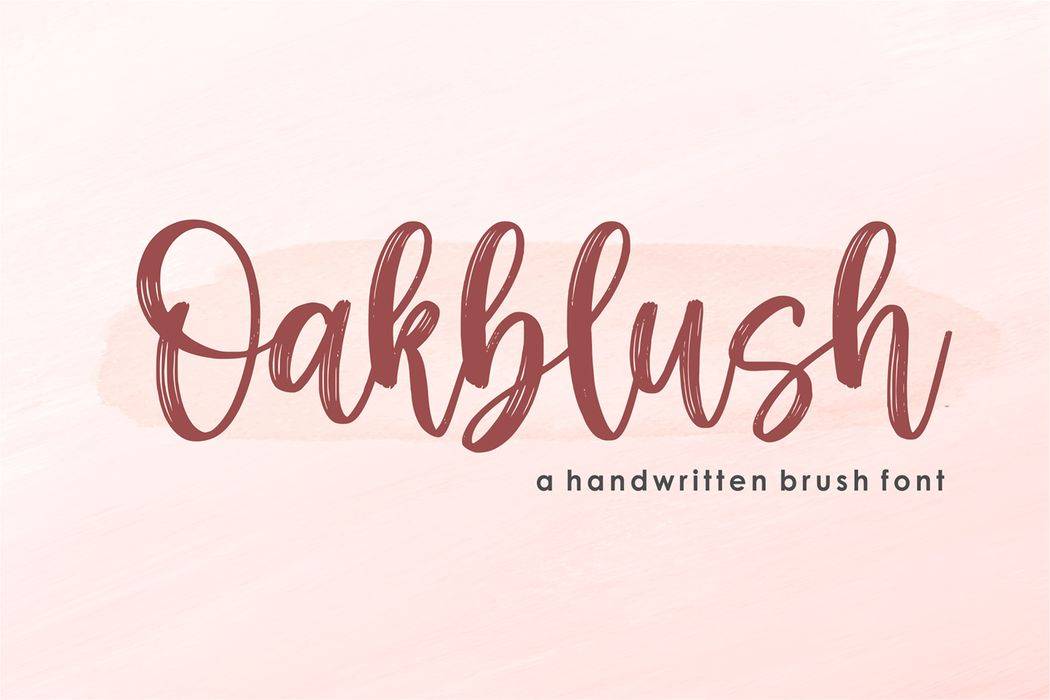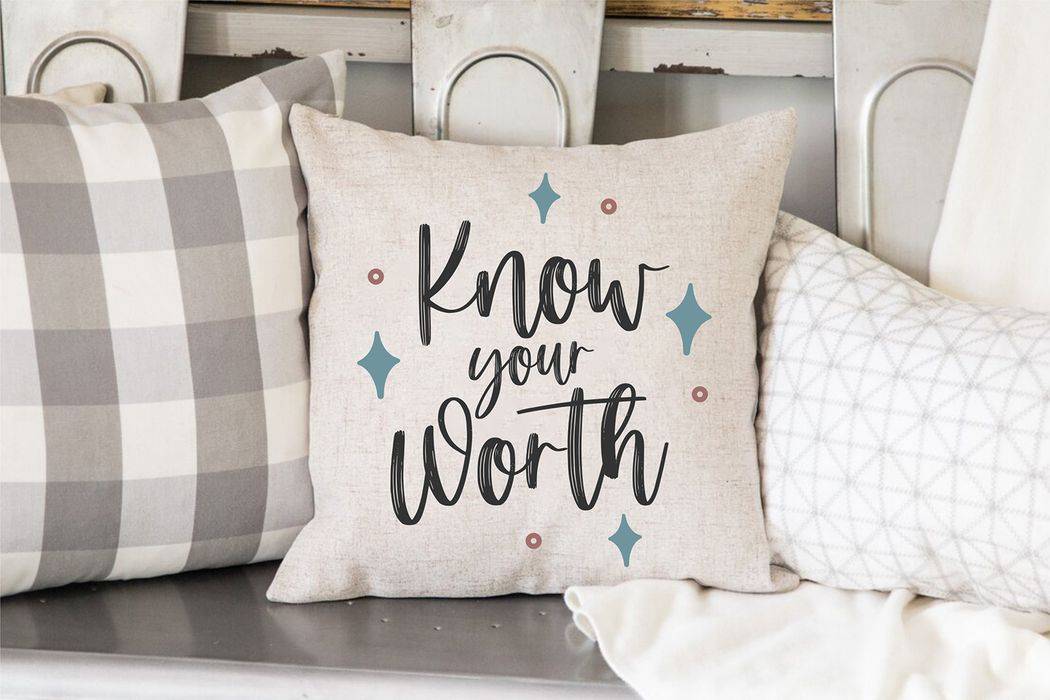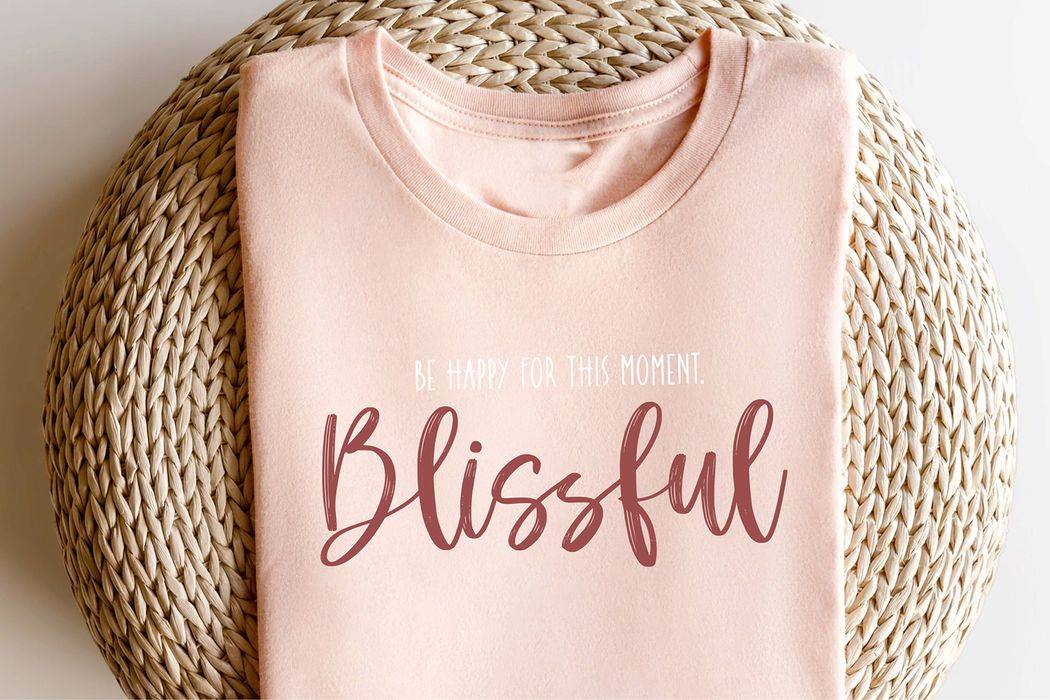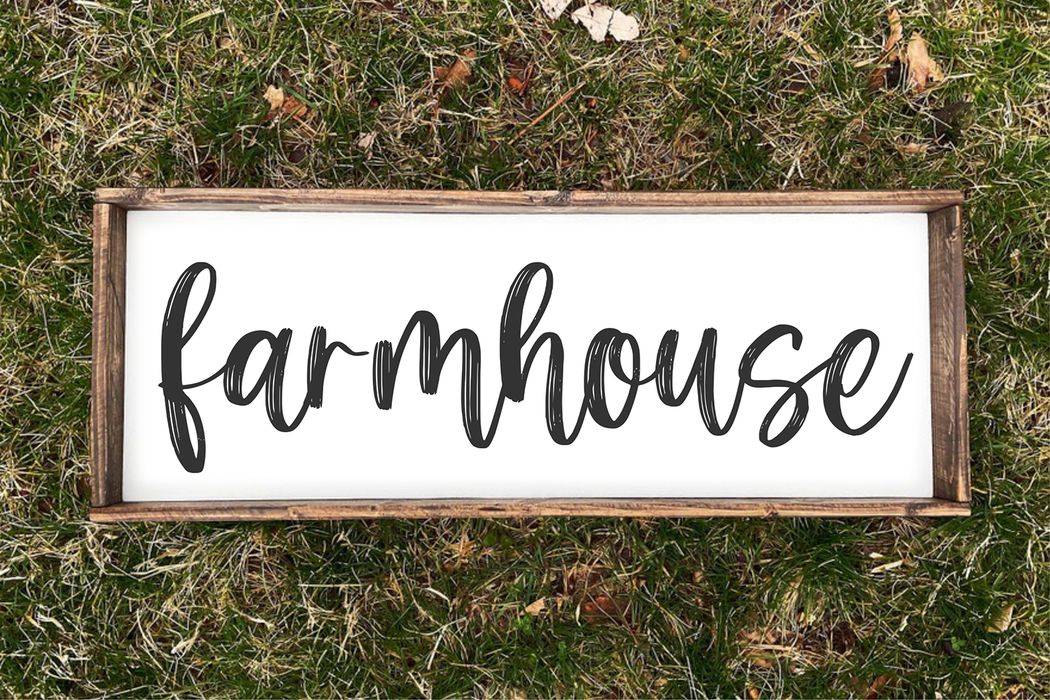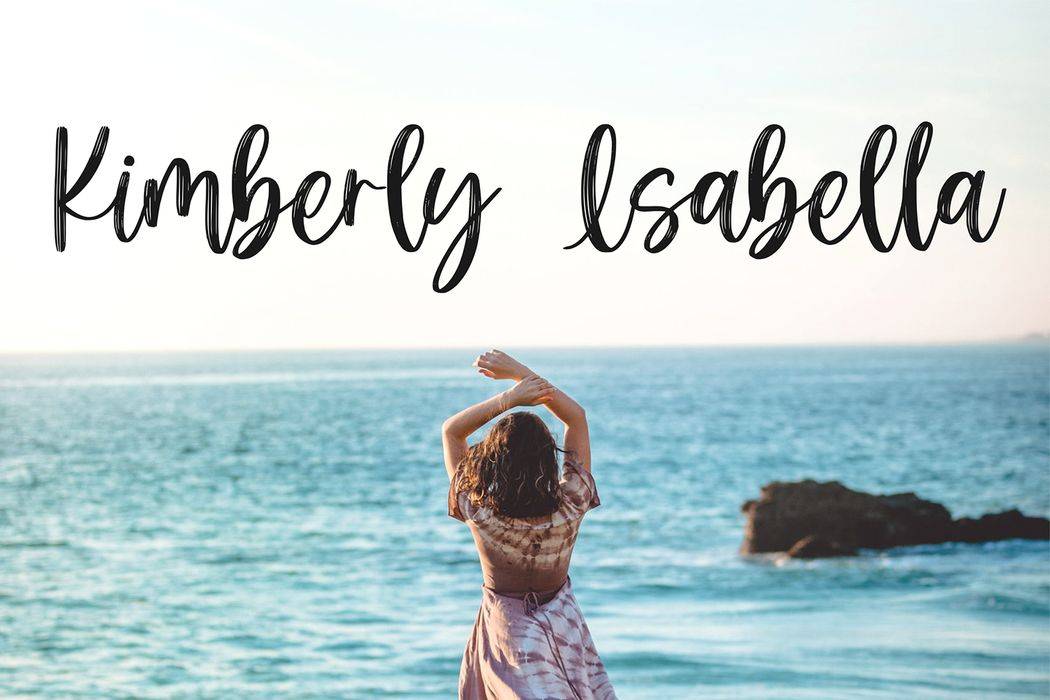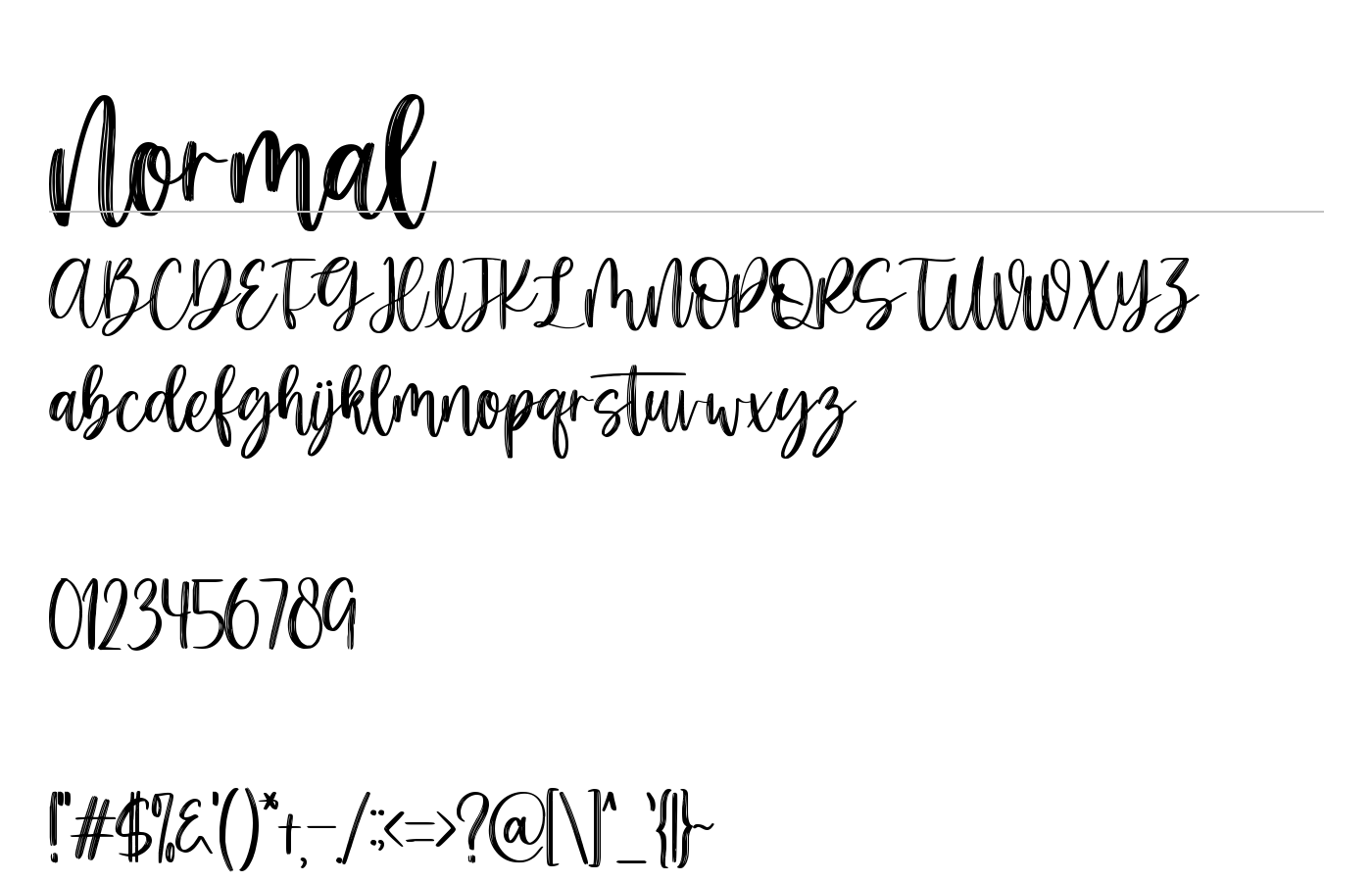
Oakblush is a playful and elegant handwritten script font with a lively, flowing style characterized by tall, slender letterforms and slightly irregular strokes that add a natural, personal touch. Its casual yet refined appearance makes it perfect for creative branding, invitations, and social media graphics where a friendly and approachable mood is desired. This font works best in headlines or decorative uses, bringing warmth and charm to any design.
Oakblush Font
About Oakblush Font